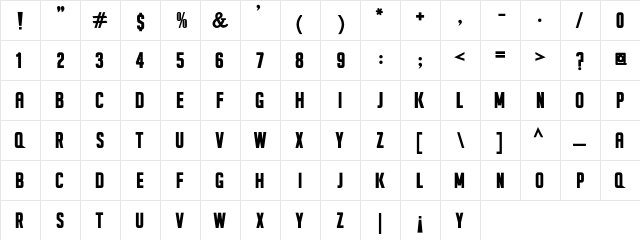
Seils Sans Bold
Design Context for Seils Sans Typeface
Seils Sans offers clean, dependable letterforms without strong stylistic allegiance, making it a practical choice for designers who need flexibility. The heavy weight commands attention and anchors typographic hierarchies.